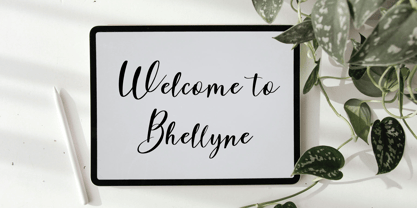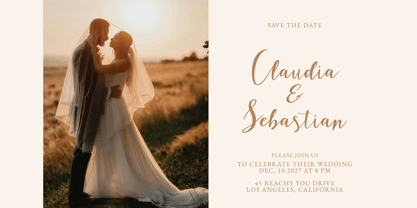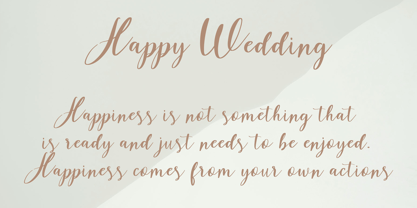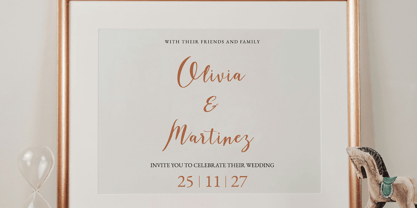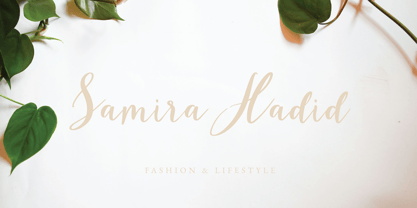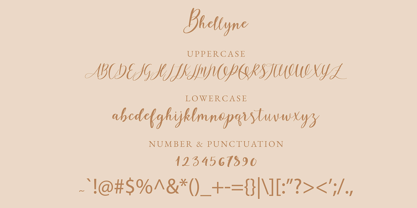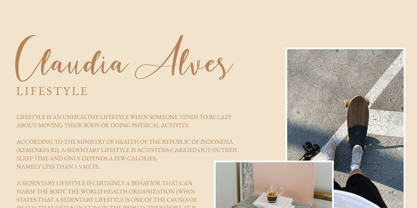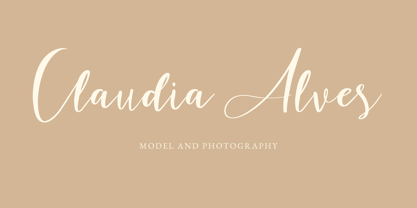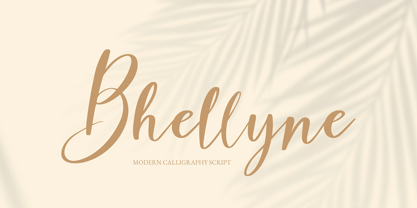
Bhellyne
by OldStudioo
The Bhellyne Font Family was designed by Muhammad Ilham and published by OldStudioo. Bhellyne contains 1 styles.
Bhellyne is a stunning script font that exudes the charm of hand-drawn elegance. Perfectly crafted with smooth, flowing strokes, it brings a natural and authentic feel to any design.
This font comes packed with exciting features, including alternate characters, allowing you to effortlessly create beautiful and unique typography. It also supports extended Latin characters, making it versatile for a wide range of languages. To top it off, standard ligatures are included, adding seamless connections between letters for a polished, professional look.
Whether you're working on logos, invitations, branding, or social media graphics, Bhellyne will add a personal and creative touch to your project.